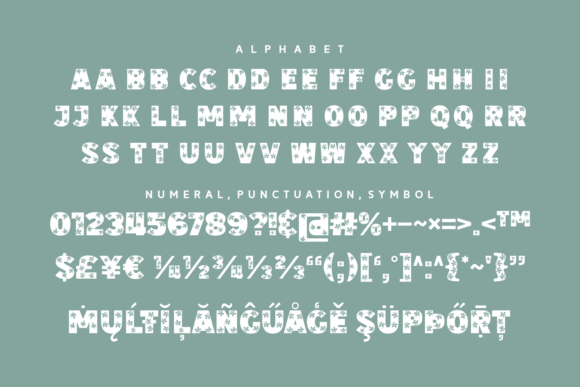
Introduction to Small Leaves Font
Have you ever found yourself lost in a forest of creativity, searching for the perfect design element to elevate your next project? For designers and artists, this is a moment we all know too well. The hunt for the right font, image, or texture can be overwhelming, but what if I told you that you’ve stumbled upon a hidden treasure – the Small Leaves Font?
This beautiful decorative font is an absolute game-changer for any creative project. Inspired by the natural world and the intricate patterns of leaves, Small Leaves Font is a stunning addition to any design. Whether you’re working on a tote bag, t-shirt, poster, or logo, this font is sure to bring a touch of elegance and sophistication to your work.
Key Features of Small Leaves Font
- High-quality design: Small Leaves Font is a premium font designed for creative projects, offering a unique and elegant look.
- Unique leaf-inspired design: Small Leaves Font features a unique and intricate leaf-inspired design, adding a touch of elegance and sophistication to any creative project.
- Perfect for design projects: This font is ideal for use in creative projects such as logos, branding, typography, and more.
Honest Review: Small Leaves Font
As a designer, I’m always on the lookout for unique and high-quality design resources to elevate my creative projects. The Small Leaves Font is a great addition to my collection, and I’m excited to share my thoughts on this versatile font.
- High-quality design: The Small Leaves Font has a beautiful, delicate design that’s perfect for adding a touch of elegance to your projects.
The only limitation I’ve noticed is that the font may not be suitable for very large text sizes, as it can become difficult to read at larger scales.
Overall, I’m really impressed with the Small Leaves Font. It’s a great design resource that’s perfect for adding a touch of whimsy and elegance to your creative projects. With its high-quality design, transparent background, and free download, it’s a must-have for any designer’s collection.
Tips for Getting the Most Out of Small Leaves Font
To get the most out of the Small Leaves Font, use it in combination with other design elements, such as images and graphics, to create a visually appealing design. You can also experiment with different font sizes and colors to achieve the desired effect.
Common Use Cases for Small Leaves Font
The Small Leaves Font is commonly used in design projects that require a natural and earthy feel, such as garden and nature-themed designs, as well as in projects that require a high level of sophistication, such as corporate presentations and reports.